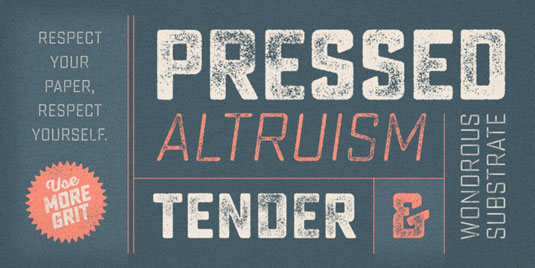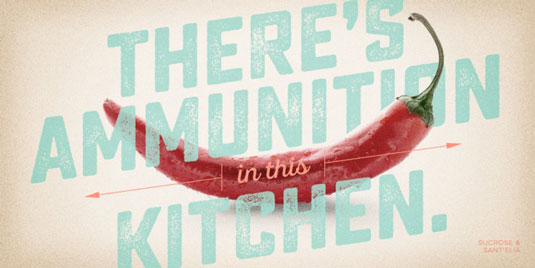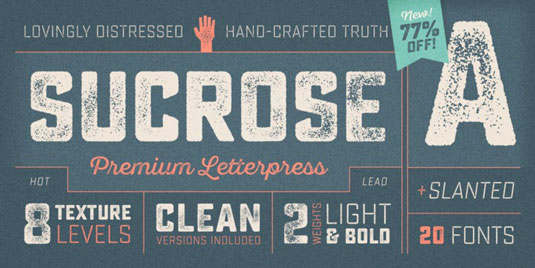
Font of the day: Sucrose
Sucrose by Ryan Martinson
Create beautiful, vintage-style designs with today's typeface of choice, Sucrose, by type designer Ryan Martinson. Available from MyFonts, it is described as being 'a high-resolution letterpress family with rectangular letterforms and authentic, hand-crafted texture. It features eight distress levels for all letters that can be mixed to create realistic, custom typesettings. The 20-font family includes light and bold weights plus clean and slanted versions'.